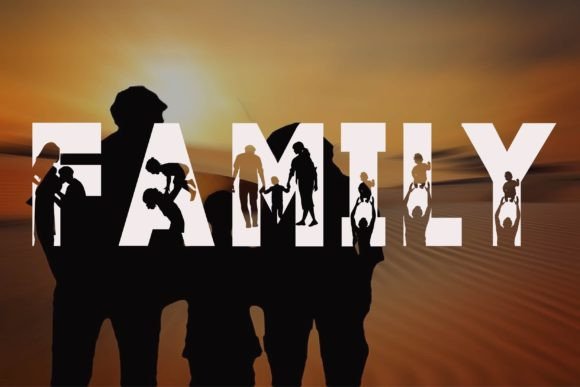
Introducing Family Font, the ultimate decorative font created by MDF that will take your design projects to the next level. With its cool and original-looking style, this font is perfect for anyone looking to make their designs stand out.
Whether you're creating a logo, designing a headline, developing a corporate identity, or simply want to add a touch of creativity to your project, Family Font has got you covered. It's a versatile font that's perfect for a wide range of design projects, including the apparel industry, posters, music, movies, games, magazines, books, comics, cartoons, YouTube, Instagram, websites, and more.
One of the standout features of Family Font is its unique and eye-catching design. It's a font that demands attention and will make your designs truly memorable. The font is perfect for anyone looking to make a statement with their designs, whether it's a bold logo or a striking headline.
But Family Font isn't just about style, it's also incredibly easy to use. The font is available in a range of weights and styles, making it easy to find the perfect option for your project. And with its keyword-rich design, you can be sure that your designs will be SEO-friendly and easy to find online.
So why settle for a boring, run-of-the-mill font when you can take your designs to the next level with Family Font? Whether you're a professional designer or just looking to add some creativity to your projects, this font is a must-have. Try it today and see the difference for yourself!